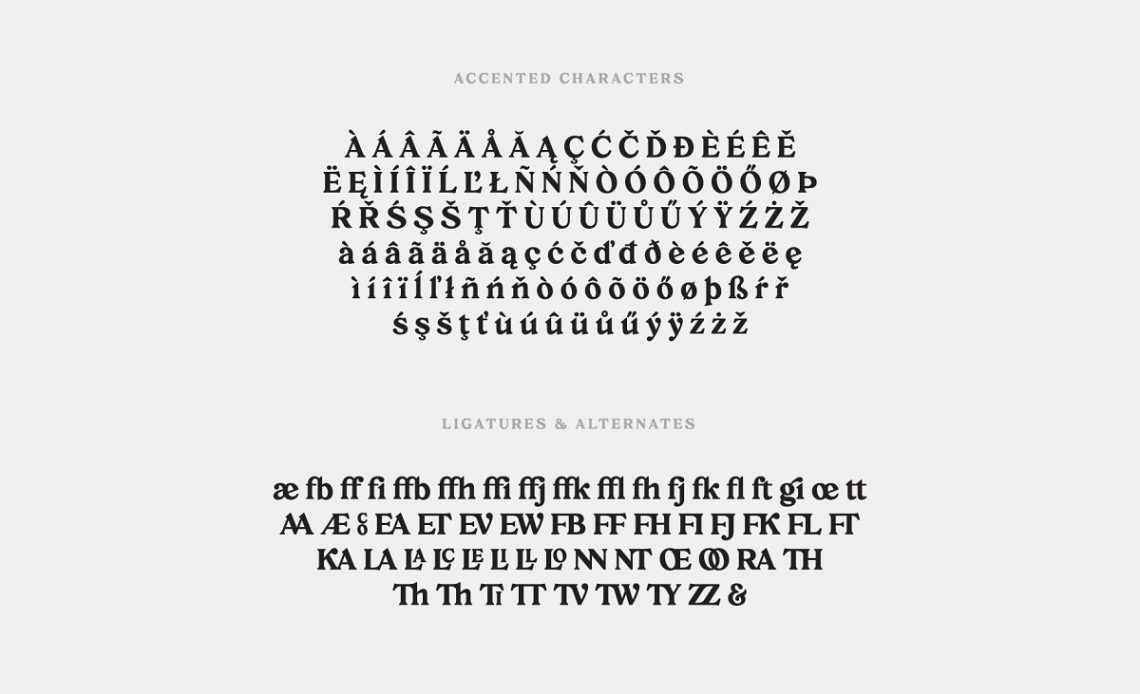
Are you looking for the perfect typeface to elevate your resume or make your packaging stand out? Look no further than Creolia - the bold, rounded serif font designed by Milan Pleva. With its modern and classy style, Creolia is the ideal choice for headlines, headers, logos, labels, postcards, presentations, magazines, invitations, and more.
One of the standout features of Creolia is its OpenType capabilities, including old style figures and ligatures. With 56 ligatures and alternates, 112 accented characters, and support for numbers, punctuation, currency, symbols, math symbols, and diacritics, this font has everything you need to create professional and eye-catching designs.
But Creolia isn't just functional - it's also beautiful. Its bold, rounded serifs give it a unique personality that will set your designs apart from the rest. And with full language support for Latin 1 + Latin 2, Western Europe and Americas, and Latin-written Slavic and Central European languages, this font is versatile and adaptable to any project.